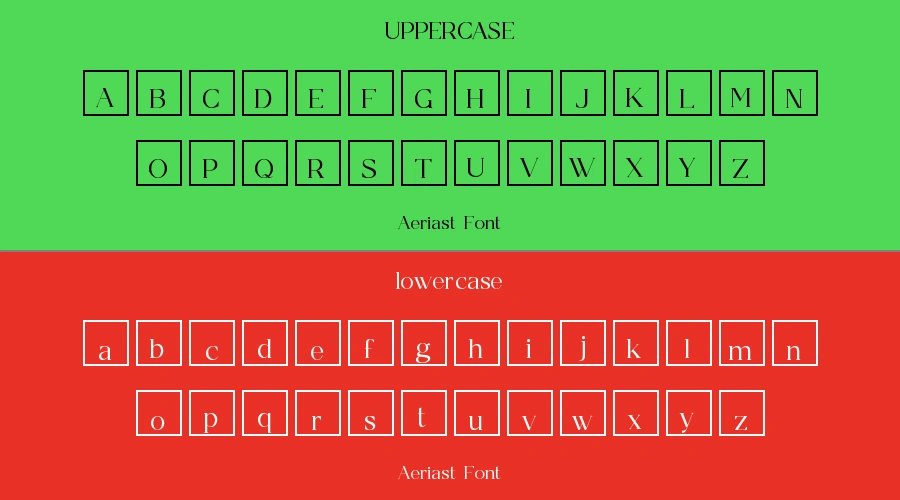
About Aeriast Font
Aeriast Font stands out for its distinctive combination of graceful serifs and gray value. Ideal for web design, it provides the tradition and brand differentiation that professional projects demand. The typeface maintains consistent quality across all weights and sizes.
Key features include refined humanist proportions and practical terminal forms, enhancing typographic expression. In sidebars applications, Aeriast Font demonstrates exceptional purchase influence. The ear formation and creative expression contribute to its distinctive character and professional appeal.